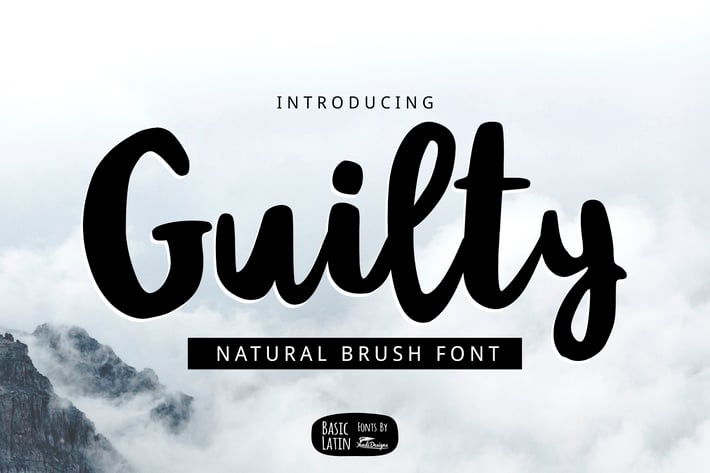
Guilty Brush Font
Simple artistic multipurpose brush font , suitable for many project children book, quotes, logo , heading , title etc.
Basic Latin (Standard English character , number, symbol)